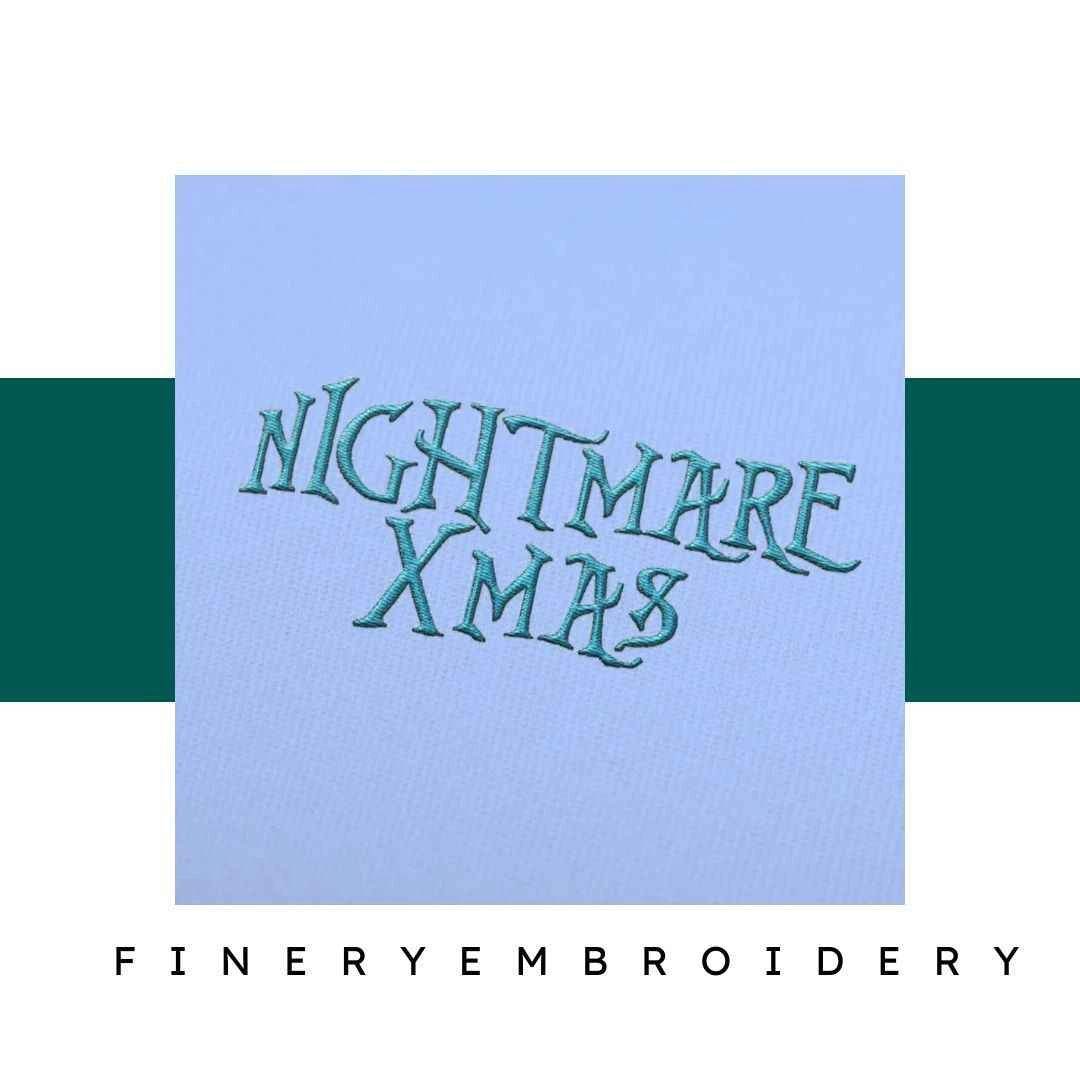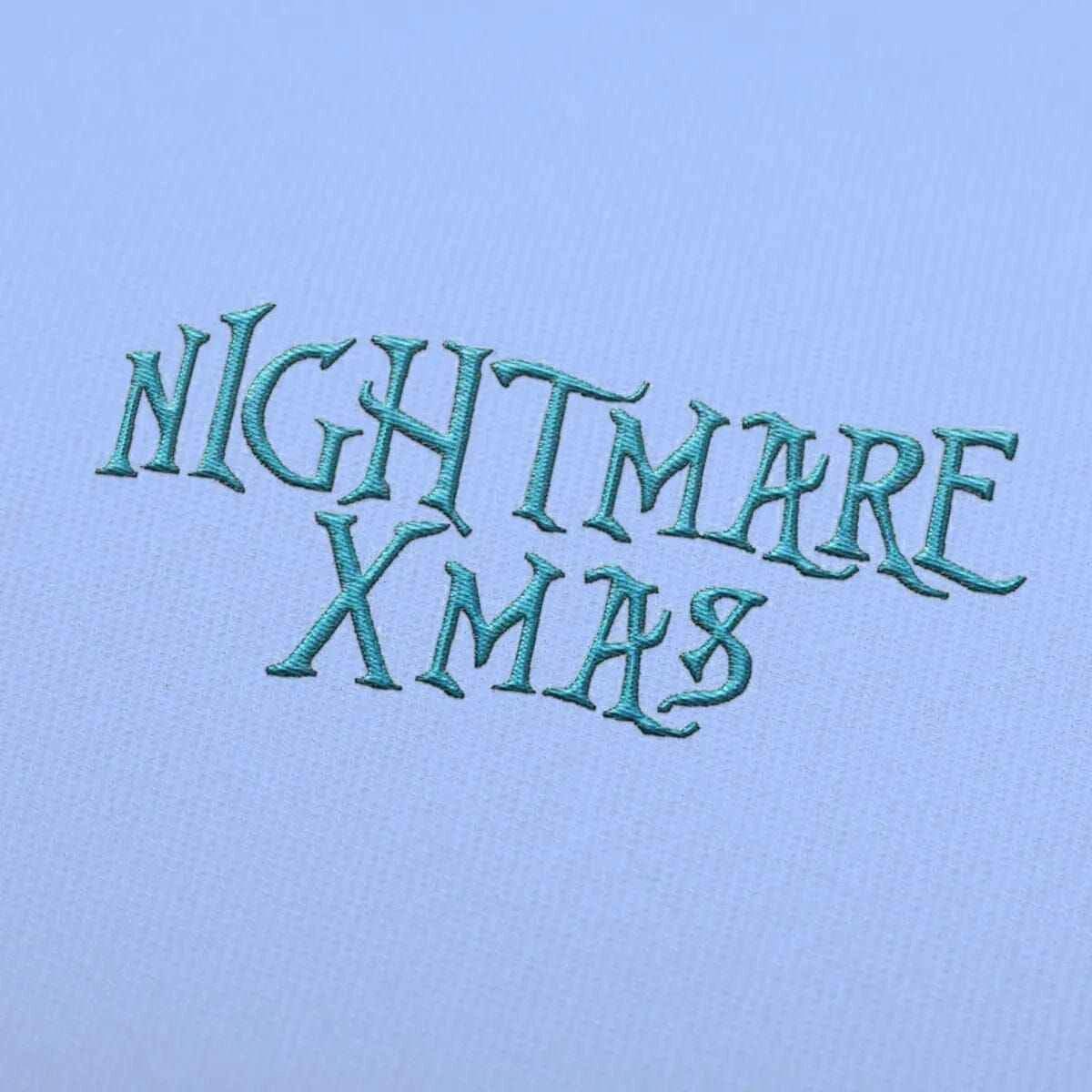
NightMare Xmas Embroidery alphabet Font Set
Transform your creations into stunning masterpieces with the NightMare Xmas Embroidery alphabet Font Set – where elegance meets creativity!
Welcome to the world of the NightMare Xmas Embroidery alphabet Font Set, your perfect companion for crafting exquisite, holiday-themed designs. This alphabet set is not just any collection; it’s a blend of elegance and high-quality craftsmanship, ideal for personalizing your projects. Whether you’re embellishing a cozy winter sweater or adding a unique touch to handmade gifts, this font set will elevate your creations to new heights.
Why You'll Love This Design
Each letter in the NightMare Xmas Embroidery alphabet Font Set is meticulously designed to ensure an elegant finish. Its intricate details shine through, making it perfect for elevating your embroidery skills and capturing the spirit of the season. You’ll appreciate the versatility this font set brings, allowing you to create personalized projects that truly reflect your style.
Creative Applications
Imagine the possibilities with this stunning font set! From custom holiday decorations and personalized gifts to unique apparel, the NightMare Xmas Embroidery alphabet Font Set is designed for endless creativity. Use it to craft unique holiday greeting cards, or to add a festive touch to table linens. Your imagination is the only limit!
Digitized for Passionate Embroiderers